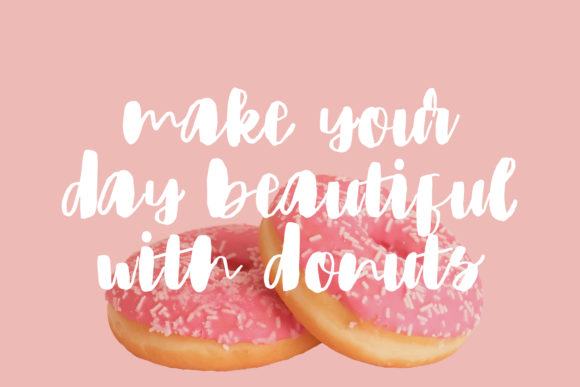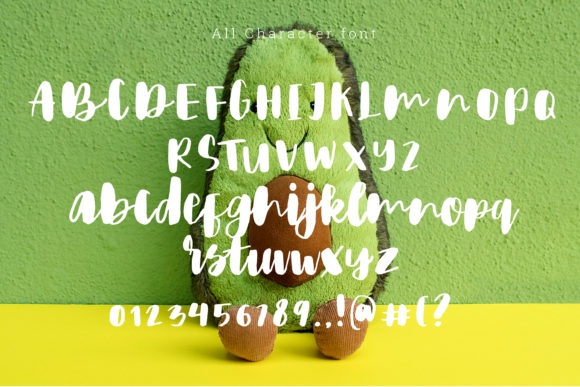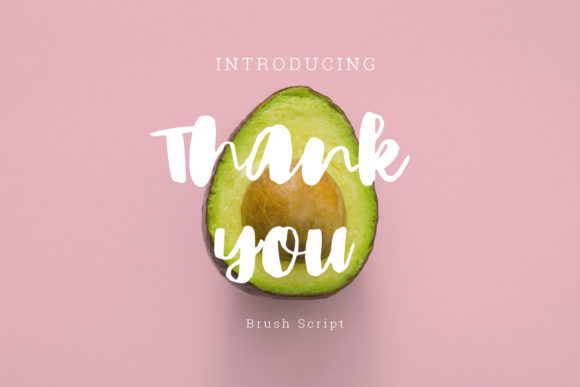
Falamma Font
About Falamma Font
Falamma is a sweet brushed script font. It is the best choice for creating eye catching logos, branding and quotes. Every letter has a unique and beautiful touch, which will make your design come alive!